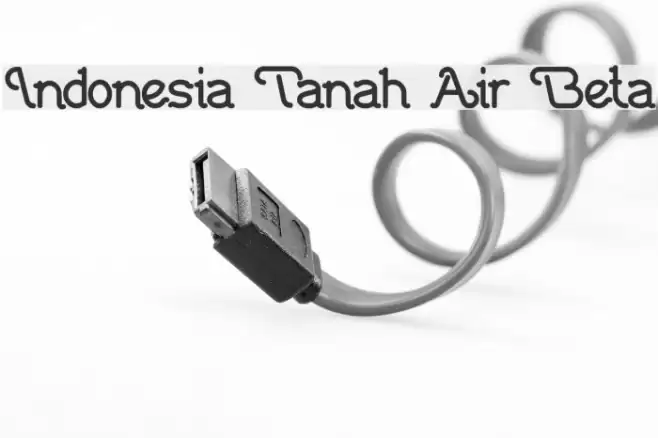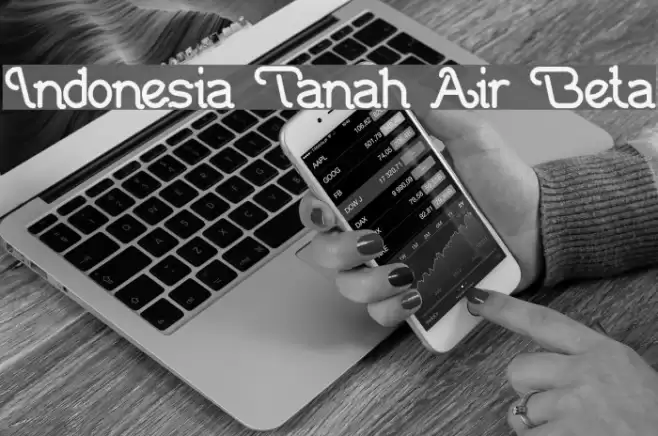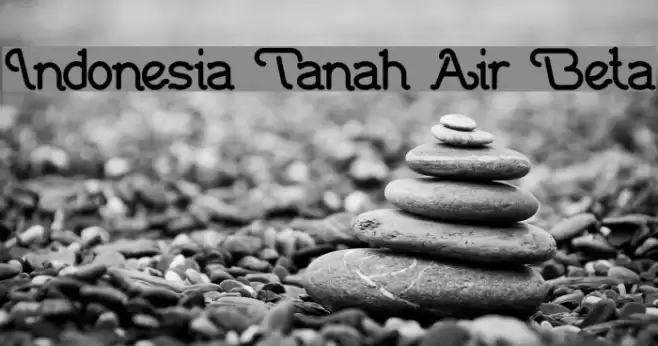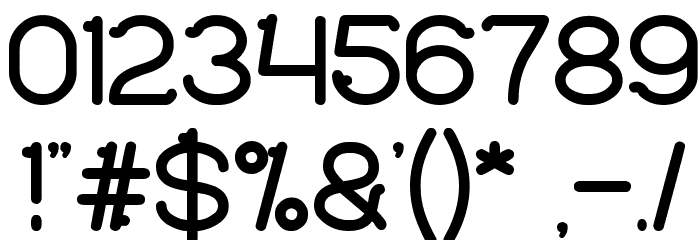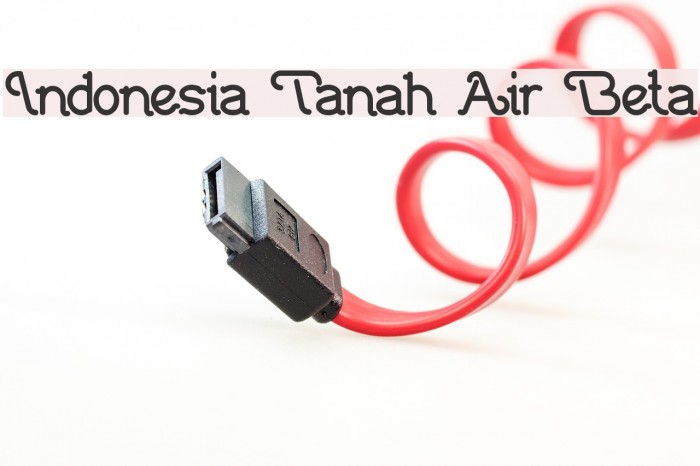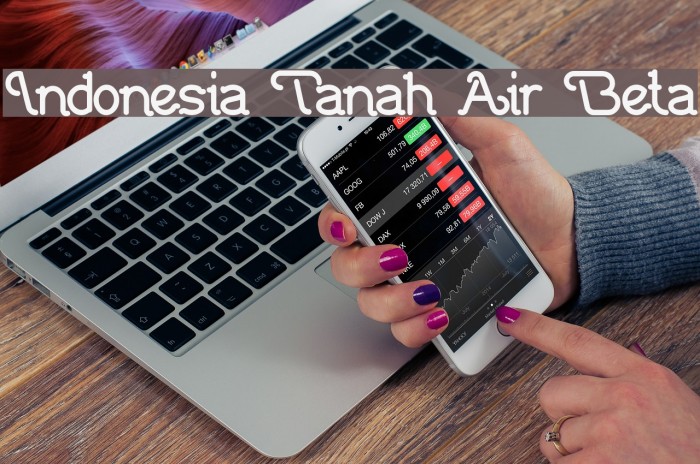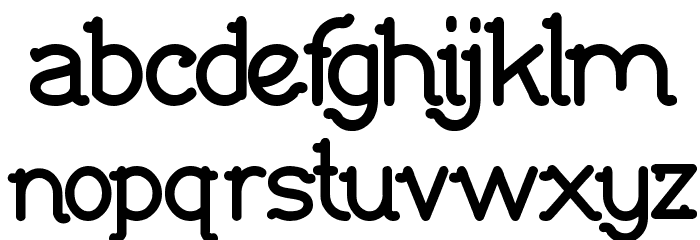
Indonesia Tanah Air Beta Font
Indonesia Tanah Air Beta Description
This font features a playful and rounded style with a unique, slightly retro aesthetic. The uppercase letters have a distinctive looped design, giving them a whimsical and approachable feel. The lowercase letters maintain a consistent rounded form, enhancing readability while retaining a friendly appearance. The numerals are bold and clear, making them suitable for various applications. Special characters are well-integrated, maintaining the overall cohesive look of the font. This typeface is ideal for projects that require a touch of fun and creativity, such as children's books, playful branding, or casual invitations.
A playful, rounded font with a retro aesthetic and looped uppercase letters from Uncategorized fonts.
- Proposed Projects: Children's books, playful branding, casual invitations, creative posters.
- Overall Style: Retro, Playful